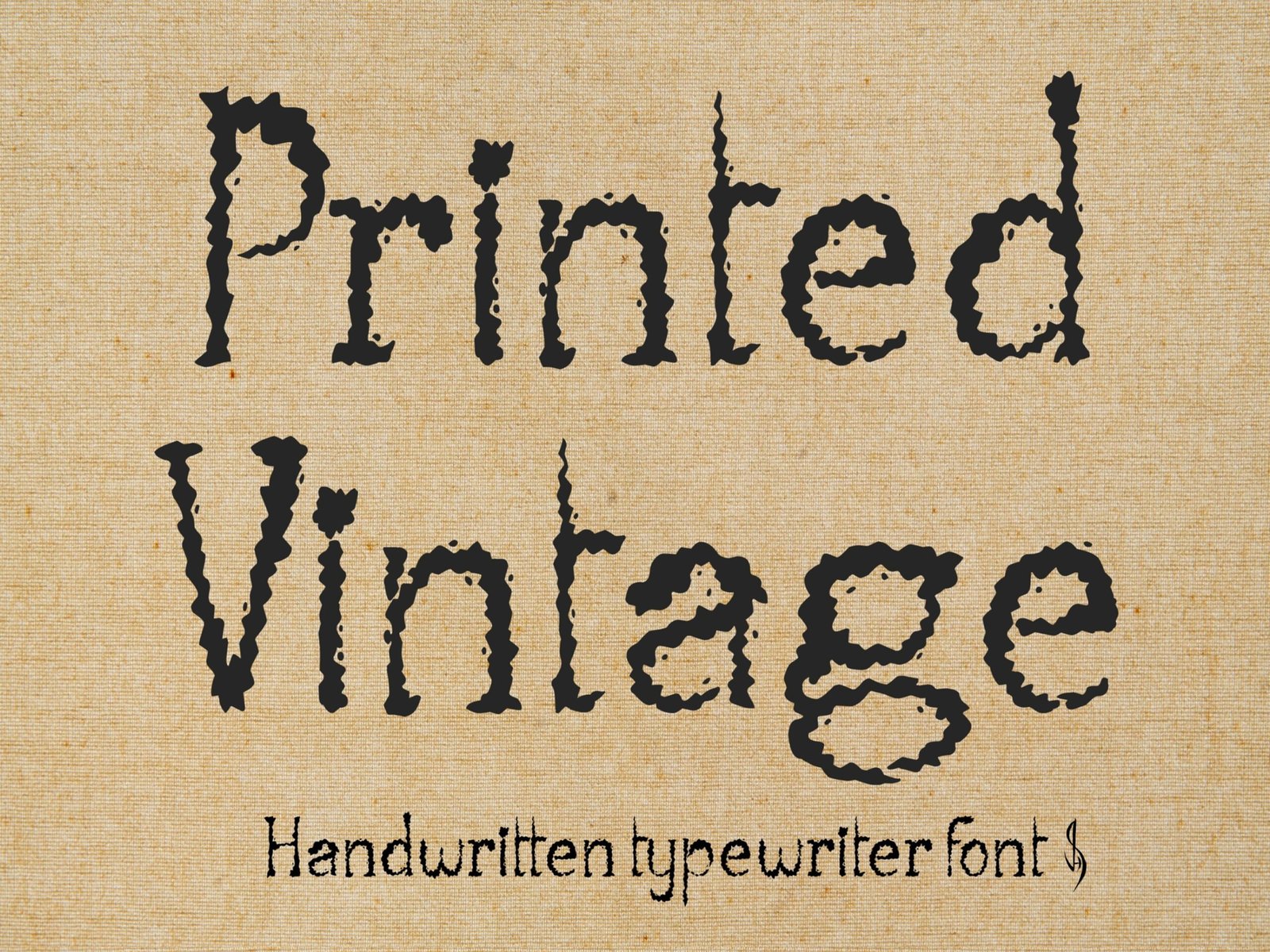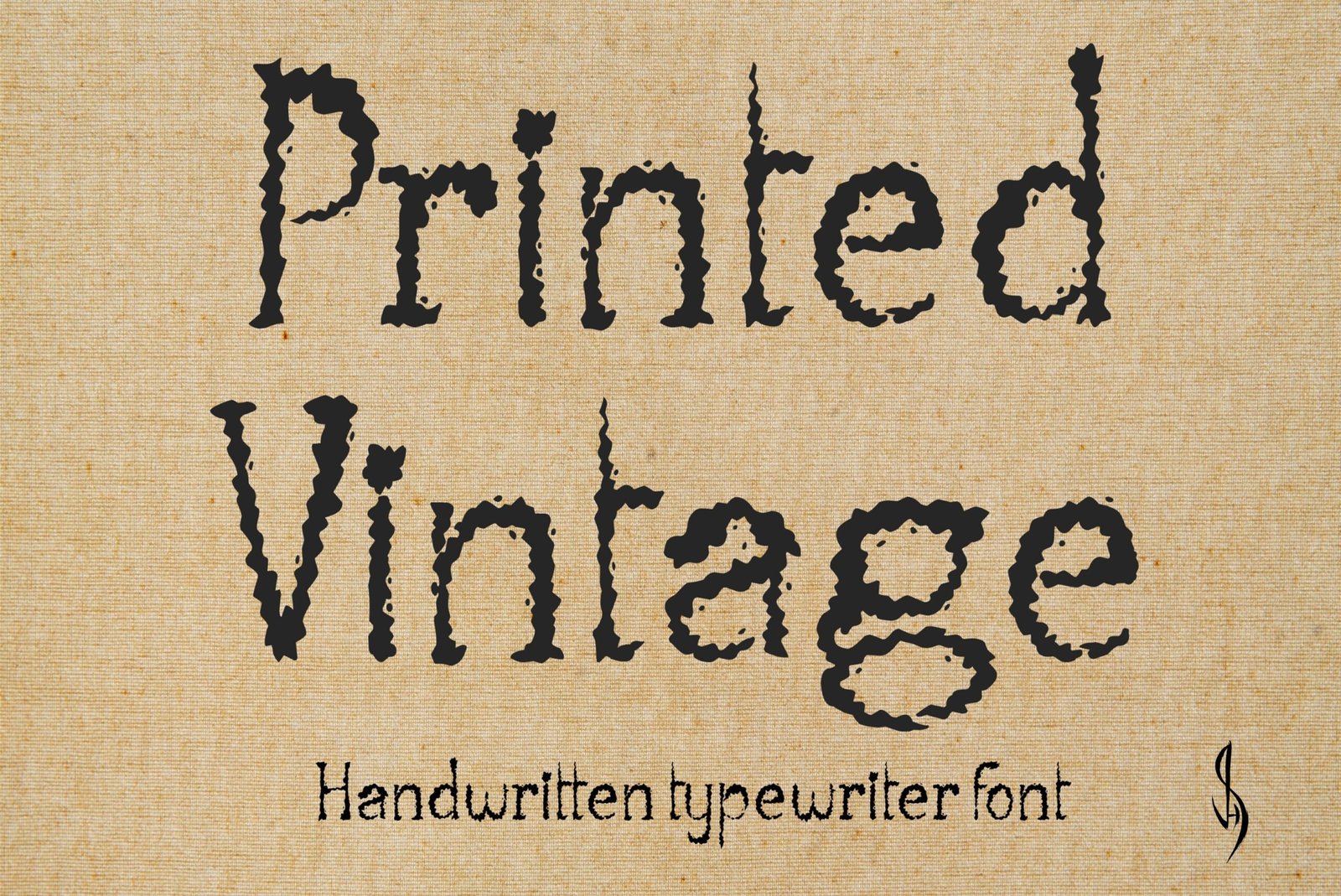
Printed Vintage Font
Handwritten typewriter font. “Printed Vintage”. Perfect for advertising and display purposes, including banners, book covers, shirts, posters, logos and much more!